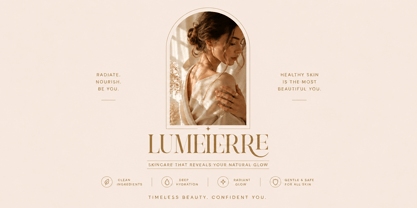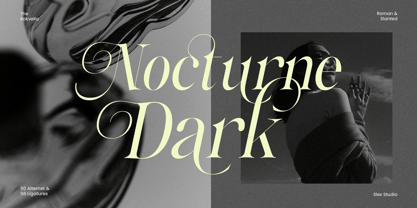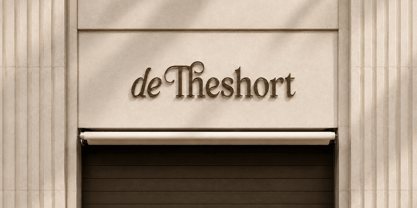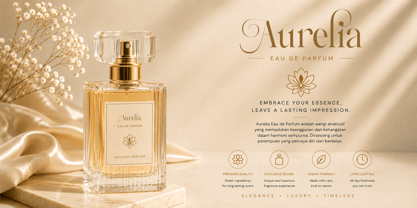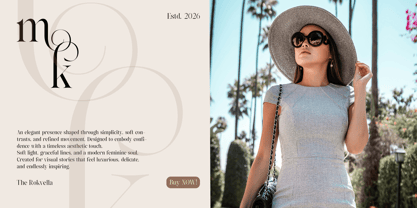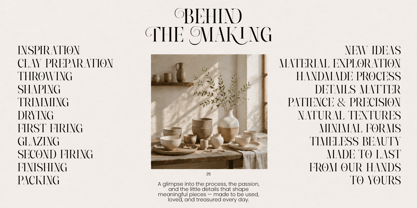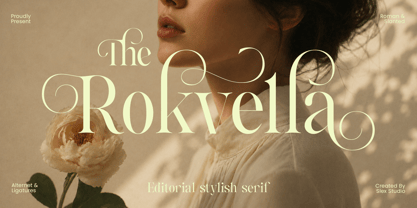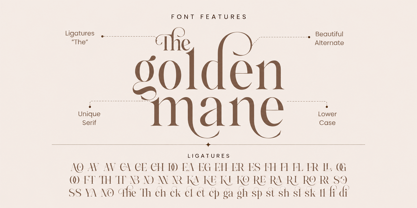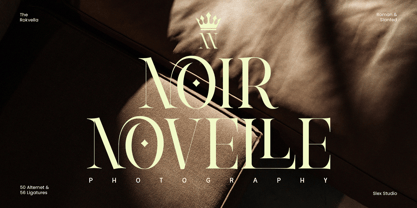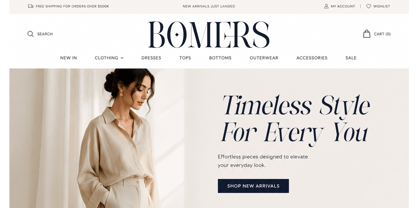
The Rokvella
by Slex Studio
The The Rokvella Font Family was designed by Muhammad Rayyan and published by Slex Studio. The Rokvella contains 45 styles and family package options.
Rokvella is an editorial-style serif font that blends classic elegance, femininity, and artistic sophistication into a luxurious visual identity. Its delicate letterforms feature thin strokes and dramatic decorative curves, creating a romantic yet modern appearance. The flowing swashes and stylish ligatures add a sense of exclusivity and refinement, making every word feel graceful and high-end.
Designed with both vintage charm and contemporary aesthetics in mind, Rokvella is perfect for premium branding, fashion editorials, wedding invitations, beauty products, luxury packaging, magazines, and artistic posters. Its Roman and slanted styles provide versatility while maintaining a soft, sophisticated, and timeless character. Rokvella is an ideal choice for designers seeking a font that feels elegant, expressive, and visually captivating.